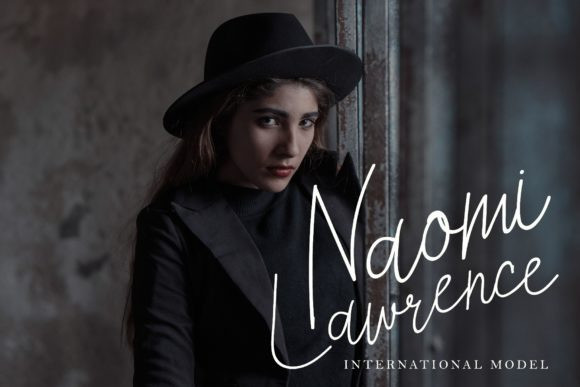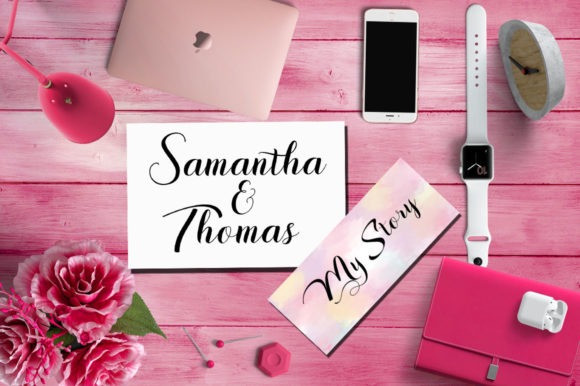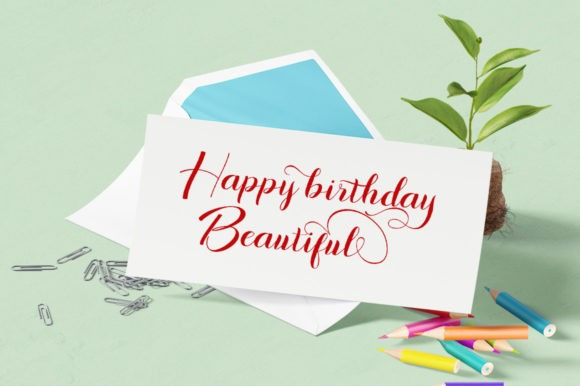
Fresh Mustard Script Font
Fresh Mustard is a playful and cursive handwritten font. Its distinct and well balanced letters make this font a masterpiece. Fall in love with its incredibly versatile style and use it to create spectacular designs!